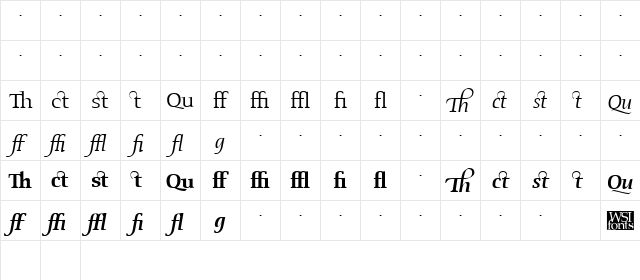
OldstyleFlourishes Regular Free Font
Design Context for OldstyleFlourishes
OldstyleFlourishes carries the refined structure of traditional serif typography, with bracketed terminals and considered proportions that communicate credibility and craft.